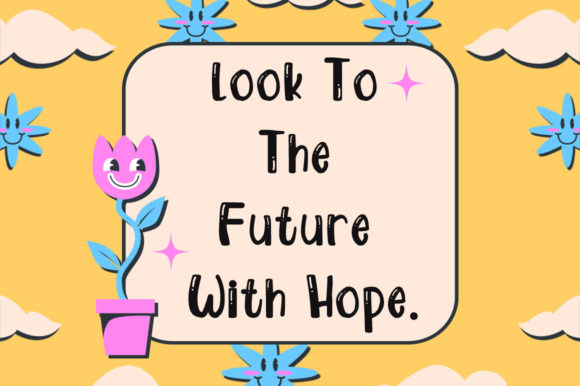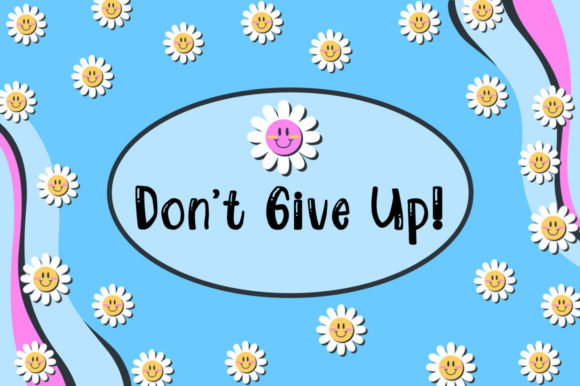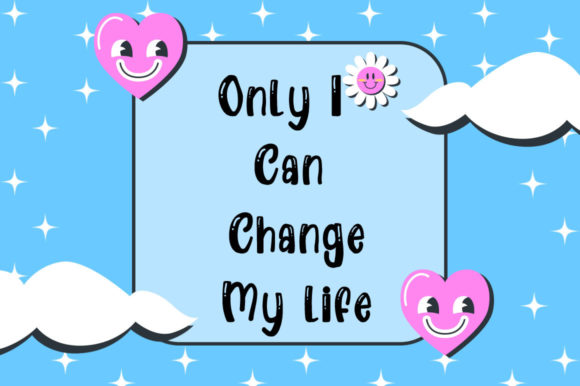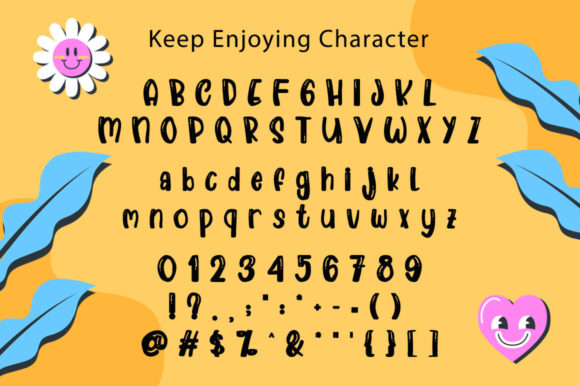
Keep Enjoying Font
“Keep Enjoying”: Playful Handmade Vibes to Elevate Your Creative Ideas
Introducing “Keep Enjoying,” a font that exudes playful handmade charm, adding a special touch to any design idea you can imagine! This display font is masterfully designed to become a true favorite, promising to bring each of your creative ideas to the highest level with its incredibly playful and expressive handwritten style.
The standout feature of “Keep Enjoying” is its playfully handmade quality. The font captures the essence of creativity and spontaneity, making it an ideal choice for designs that require a lighthearted and joyous touch. Whether you’re working on invitations, posters, social media graphics, or any other project, “Keep Enjoying” becomes the key element that infuses a sense of playfulness and uniqueness.
The playful handwritten vibe of “Keep Enjoying” opens up a world of creative possibilities. Imagine using it for event posters, where the font’s expressive style enhances the excitement and energy of the occasion. In social media graphics, the font becomes a visual tool for conveying a fun and engaging message, capturing the attention of your audience.
The font’s design is not just about letters; it’s about creating an experience. “Keep Enjoying” transforms ordinary text into a playful visual element, making it a standout choice for any design that aims to stand out and be remembered. Its handmade charm adds a touch of authenticity, creating a connection with the audience.
“Keep Enjoying” is not limited by design constraints; it’s an invitation to explore creativity without boundaries. Its versatility allows it to adapt to various design contexts, making it suitable for a wide range of projects where a playful and handmade aesthetic is desired.
In conclusion, “Keep Enjoying” is more than just a font; it’s a creative companion that brings a playful handmade vibe to your designs. Whether you’re working on invitations, posters, social media graphics, or any other project, let “Keep Enjoying” be the font that adds a special touch of joy and uniqueness. Explore its potential, and watch as it elevates each of your creative ideas to the highest level of playful expression.